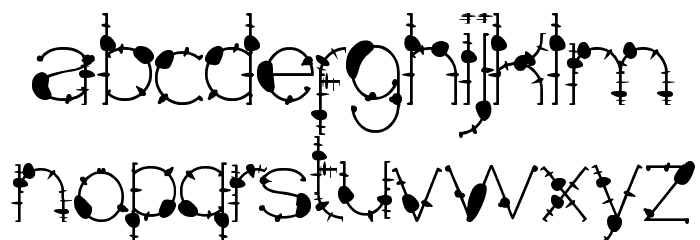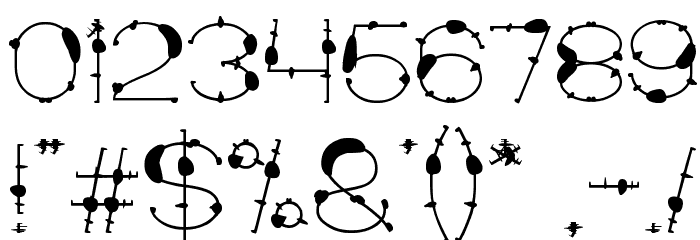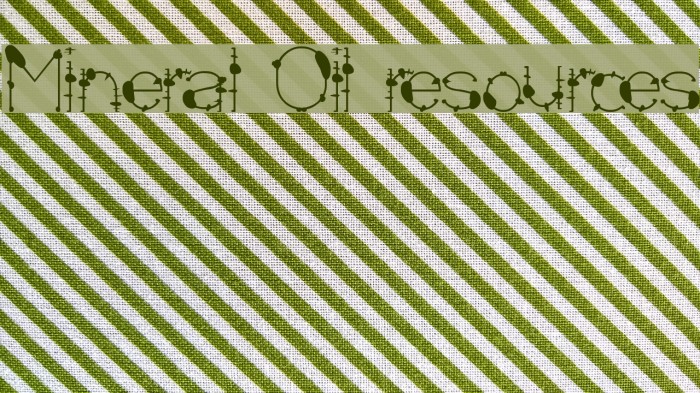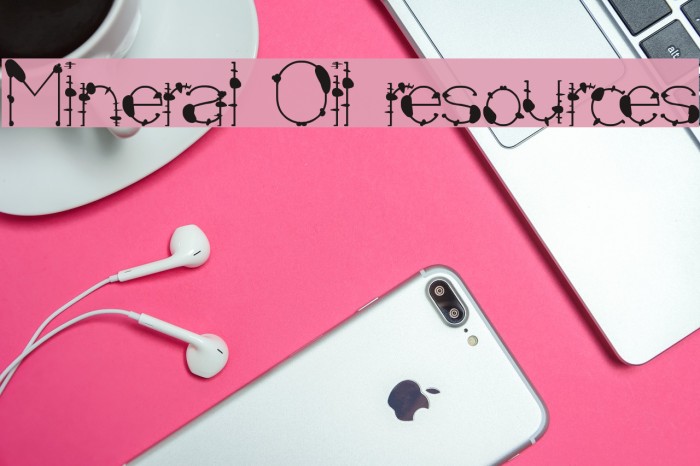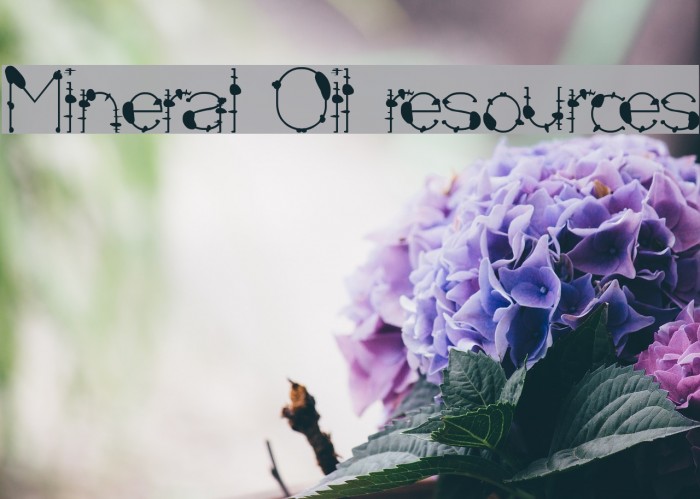
Mineral Oil resources Font
This font presents a highly decorative and abstract style, characterized by its unique use of geometric shapes and lines. Each character is constructed with a combination of circles, dots, and connecting lines, creating a futuristic and artistic appearance. The design is intricate, with varying stroke thicknesses and a playful arrangement of elements that give it a dynamic and unconventional look. The font's distinctiveness makes it stand out, offering a visually engaging experience. It is not suited for body text due to its complexity but excels in creative and artistic applications where a bold statement is desired.
A decorative and abstract font with geometric shapes and lines.
- Proposed Projects: Ideal for artistic projects, futuristic designs, posters, and creative branding.
- Overall Style: Futuristic, Artistic
- Use Case: Logos, Posters, Creative Branding